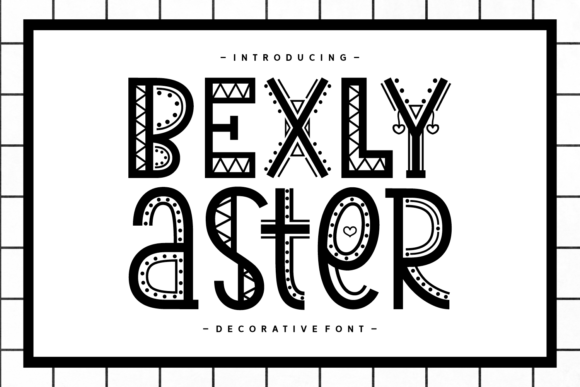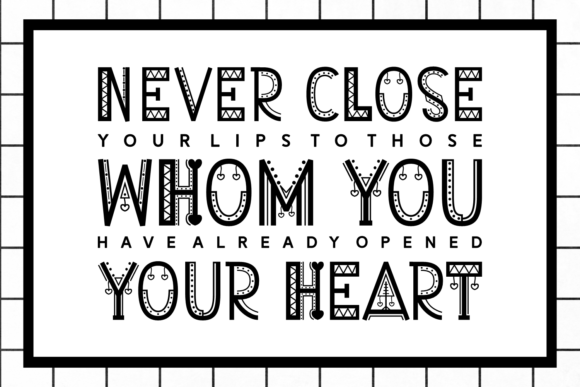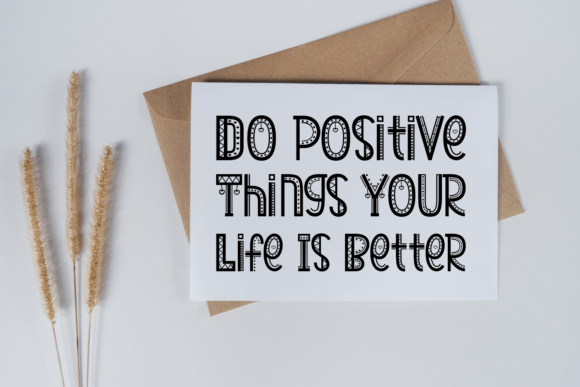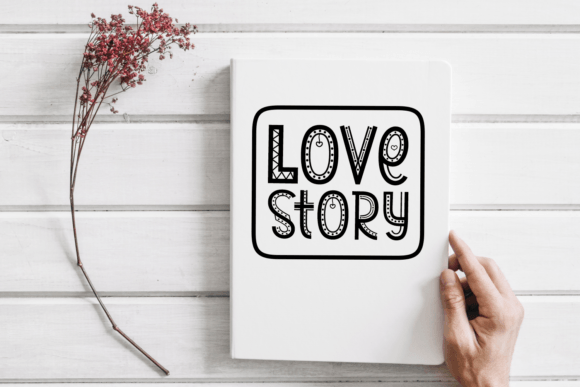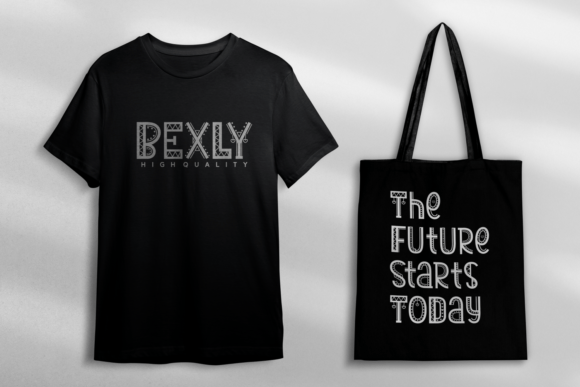
Bexly Aster is a lovely and unique decorative font. Create outstanding typography designs with this playful and stylish font with cute ornamental details! It looks great on fabric prints, book covers, invitations, and many more.